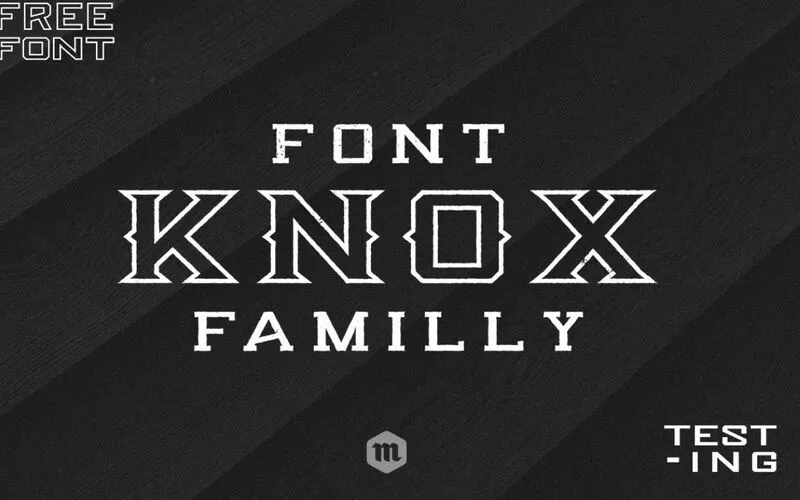
Add a touch of the wild west to your designs with –
Knox Serif Typeface
A free font for commercial use. Inspired by American western culture and tattoos, it is perfect to use in vintage-themed designs.
Knox is suitable for any project that requires an old western feel as the core design elements, such as :
Greeting cards
Logos & branding
Posters & flyers
Social media graphics
Wedding invitations
Vintage-themed designs
Classic serif style with vintage western inspiration
Bold, strong letterforms suitable for standout designs
Ideal for creating an old western or retro aesthetic
Font Name: Knox Serif
Style: Western-inspired serif